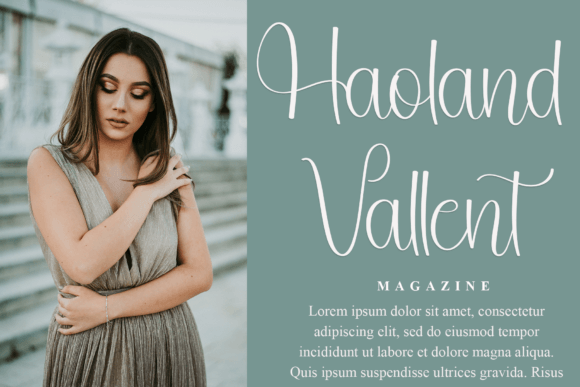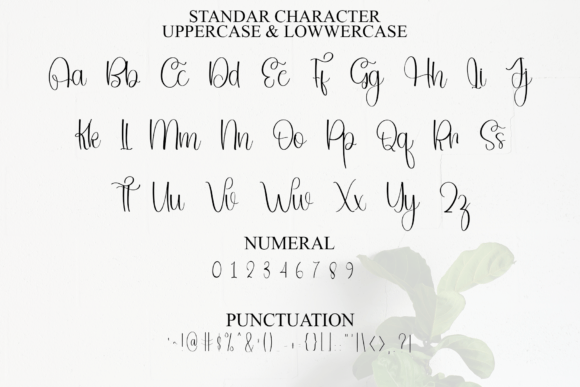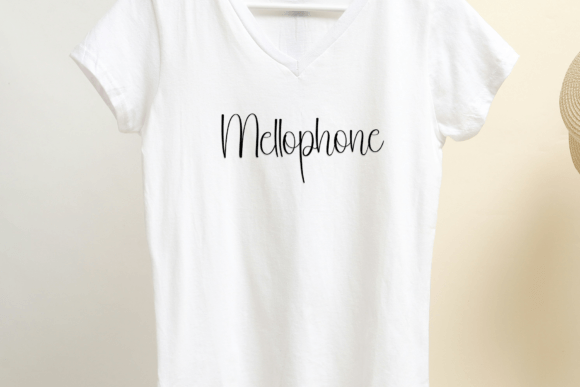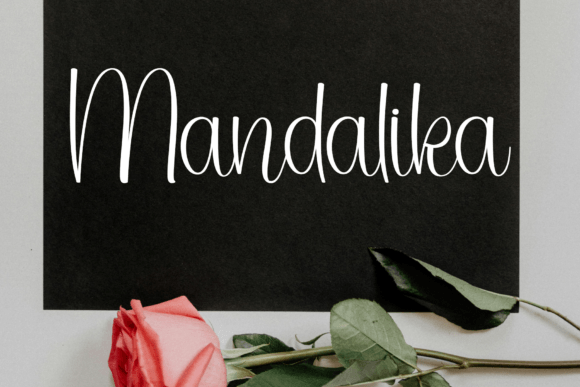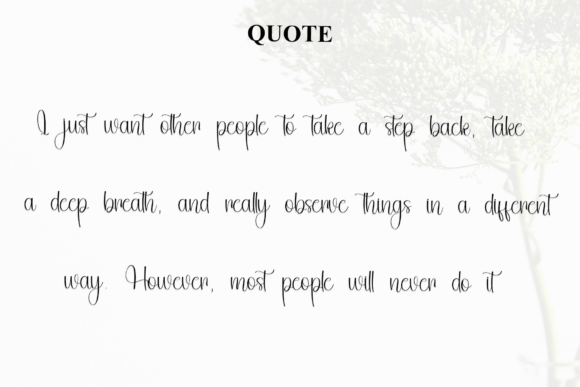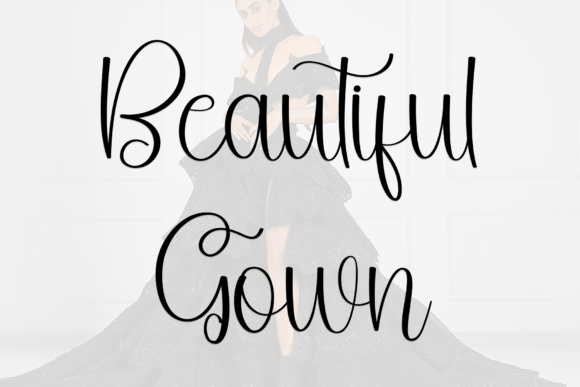
The Birth of a Signature Style
Imagine the moment when your logo or business card finally comes together – the perfect fusion of design, color, and typography. It’s a feeling of pride and accomplishment, knowing that your brand is about to make a lasting impression. But have you ever wondered what sets a truly elegant design apart from the rest?
That’s where the Elegant Signature Font comes in – a beautifully handcrafted font designed to elevate your business needs. With its smooth touch and beautiful strokes, this font is perfect for creating a natural feel in your work. Whether you’re a designer, entrepreneur, or simply someone who wants to make a statement, the Elegant Signature Font is a valuable addition to your toolkit.
Elegant Signature Font Key Features
- Unique Characteristics: Hand-drawn design, elegant script, and sophisticated flair, perfect for personal and business signatures
Elegant Signature Font Review
I recently had the chance to work with the “Elegant Signature Font” and here’s my honest review.
- Stylish and elegant design: This font is perfect for those who want to add a touch of sophistication to their branding or signature.
- Easy to read: The font is well-balanced and easy on the eyes, making it perfect for both digital and print materials.
- No italic or bold variations: While the font is elegant, it would be nice to have italic and bold variations for added versatility.
Overall, I think the “Elegant Signature Font” is a great choice for those who want to add a touch of elegance to their branding or signature. While it has some limitations, the font’s stylish design and easy readability make it a great option for many applications.
Getting the Most Out of Elegant Signature Font
Use Elegant Signature Font for:
1. Business cards and letterheads.
2. Signatures and email footers.
3. Personal branding and marketing materials.
4. Wedding invitations and event stationery.
Remember to pair Elegant Signature Font with a clean and simple design to create a professional and elegant look.